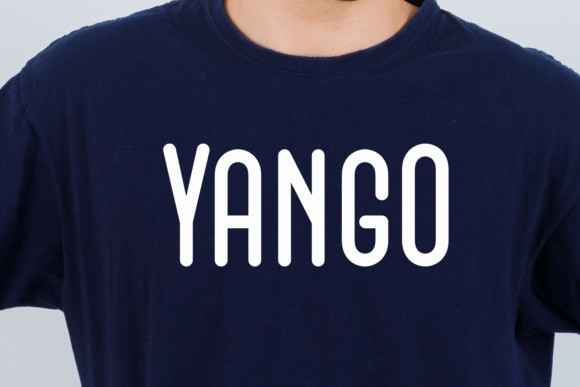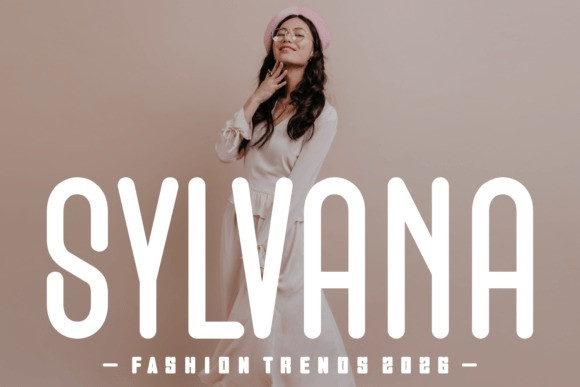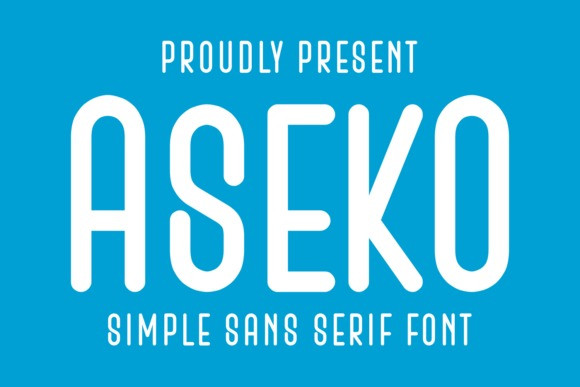
Aseko Font is an epitome of style and elegance, a condensed sans-serif masterpiece meticulously crafted for expressionists who prize minimalistic beauty with a bold statement.
Magnificently tall, slim letters and sophisticated spacing characterize this font, making it an exceptional choice for print-on-demand ventures including fashionable tees, captivating posters, bespoke mugs, and designer tote bags. Aseko shines brilliantly on film titles, contemporary branding, snappy logos, and trendy packaging, offering a versatile style that blends harmoniously with both professional and whimsical designs. Whether it’s for artistic crafting projects, minimalist brand identities, or cinematic visuals, Aseko is the perfect font, rendering a classic statement with a stylish edge.